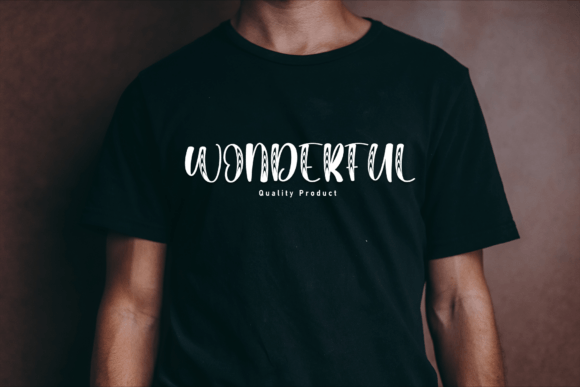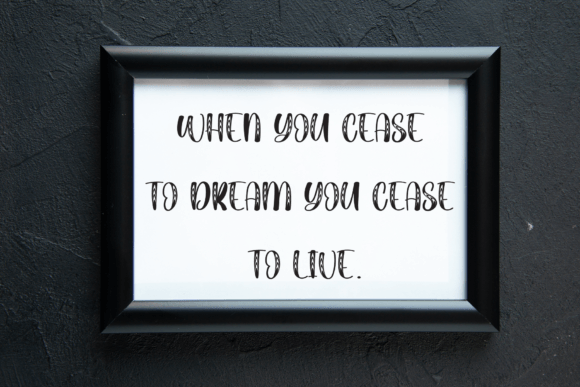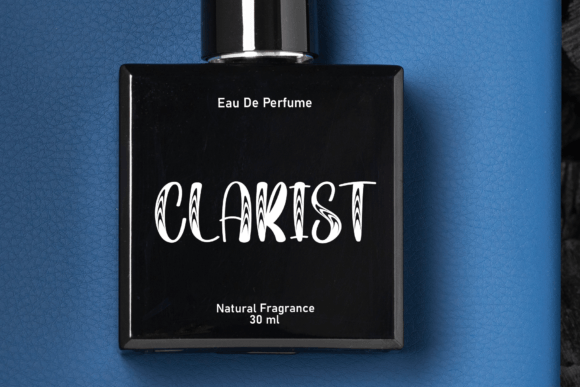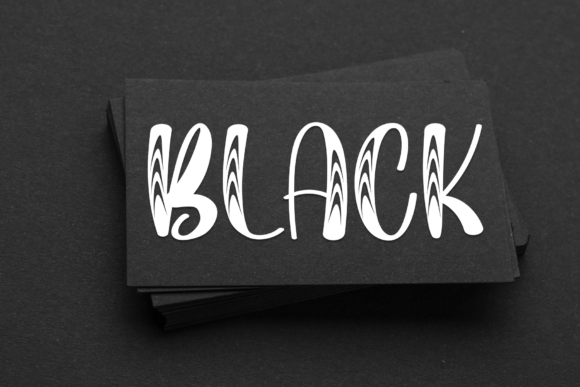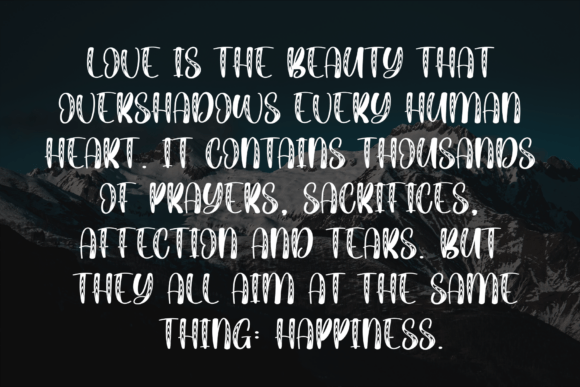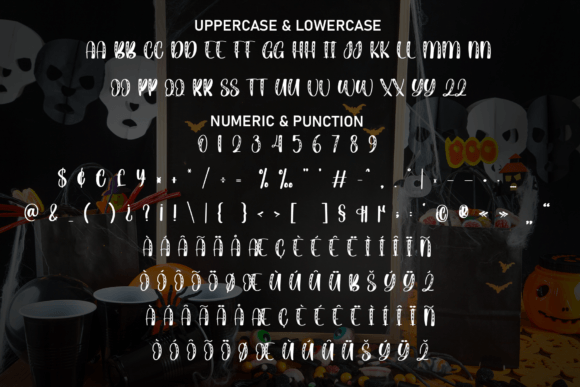
Introduction to Merry Halloween Font
Merry Halloween is a fun and spooky greeting written in a bold, handwritten font.
It combines playful letters with a lively style, making it perfect for Halloween celebrations .
Key Features of Merry Halloween Font